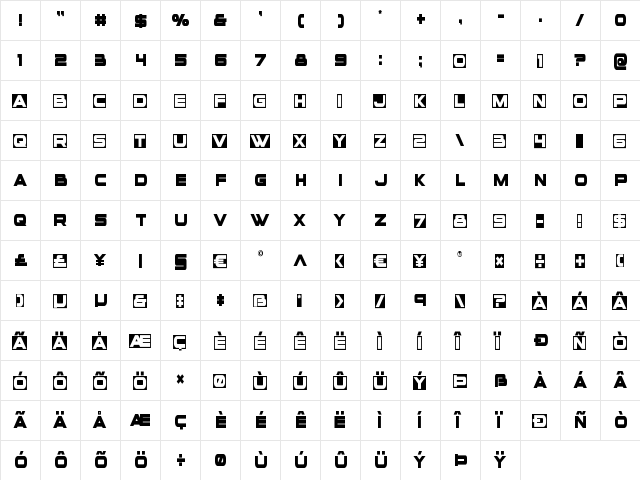
voxBOX Condensed Condensed
Design Context for voxBOX Condensed Typeface
voxBOX Condensed takes a measured approach to typography — its balanced proportions and neutral character make it a reliable workhorse for both digital and print work. Its narrow stance lets it pack a punch even in space-constrained designs.